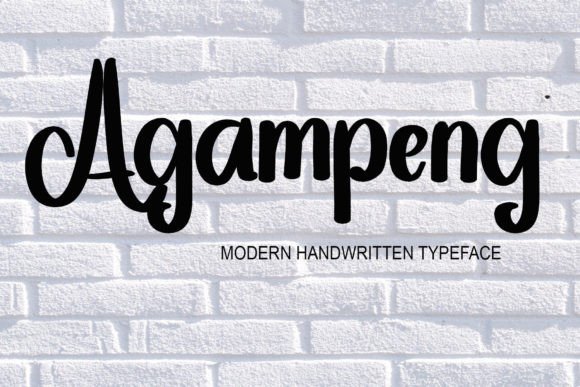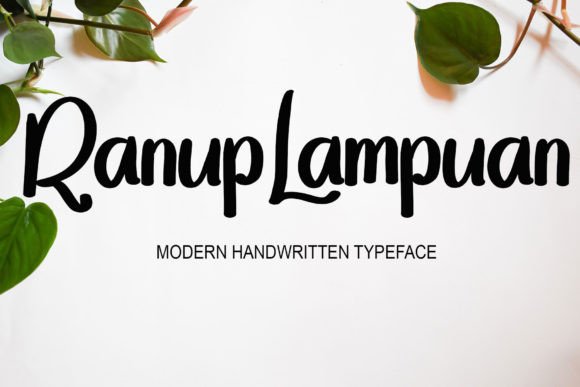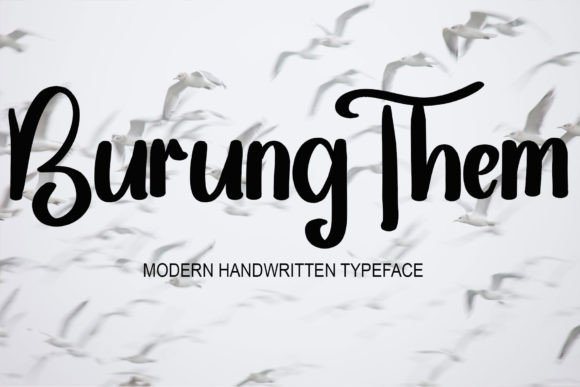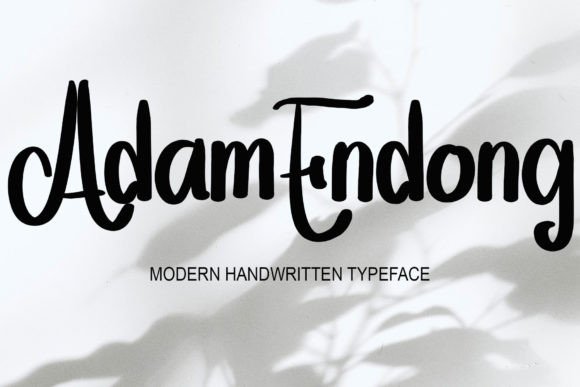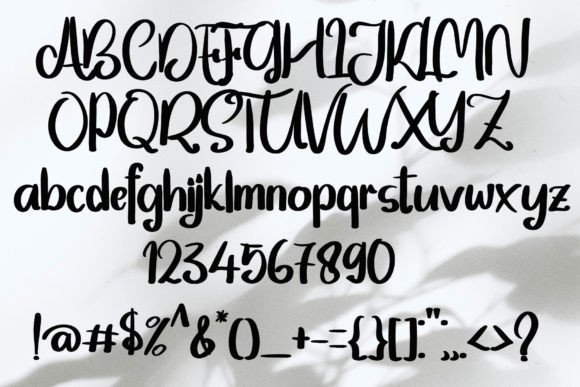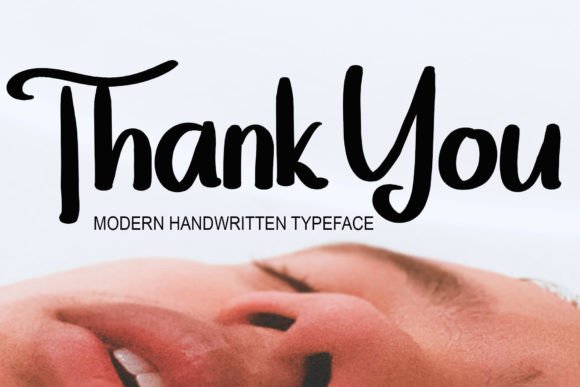
Agampeng
Agampeng This is a font written by hand using a tablet, this font is very simple which I wrote very carefully. The font can also be used for websites, or wedding invitations, business cards, signatures and for advertisements, be it product advertisements or other advertisements. Even though it looks simple, this font still looks cool and stylish.
A handwritten brush script font.